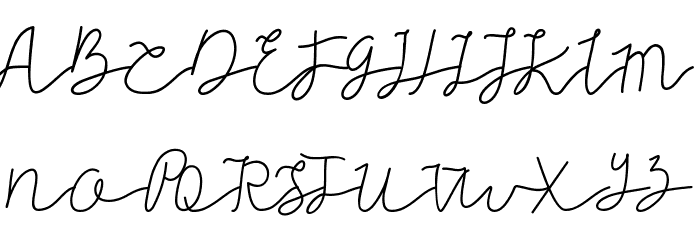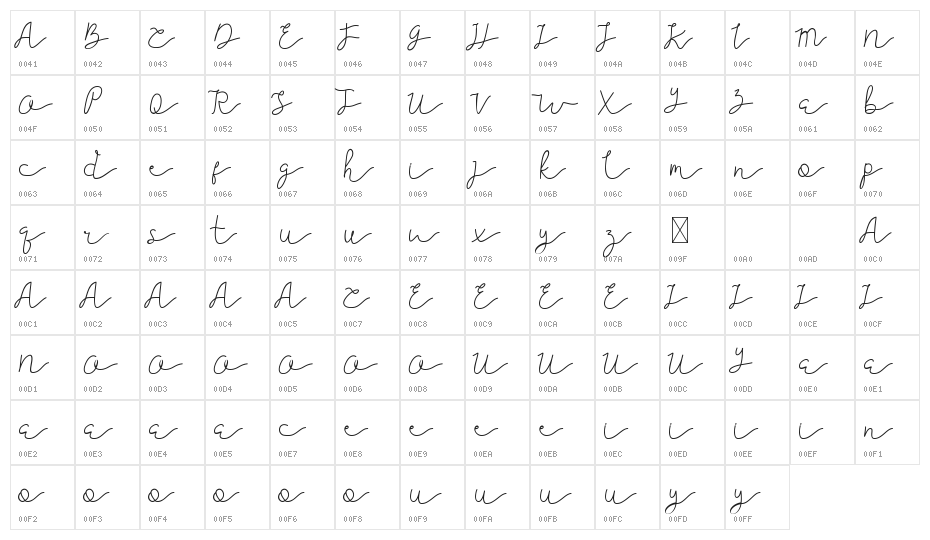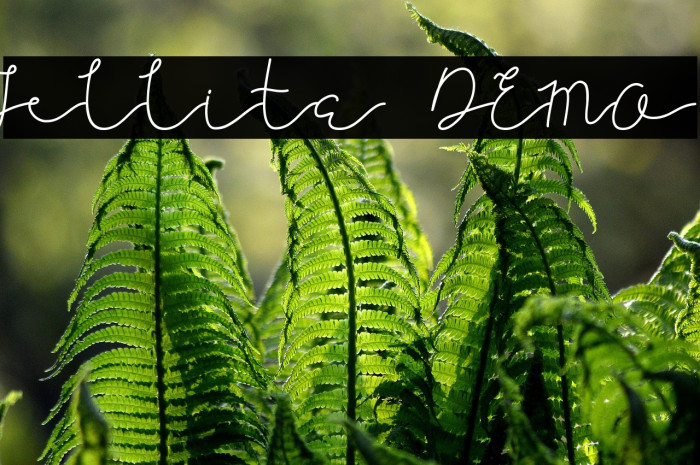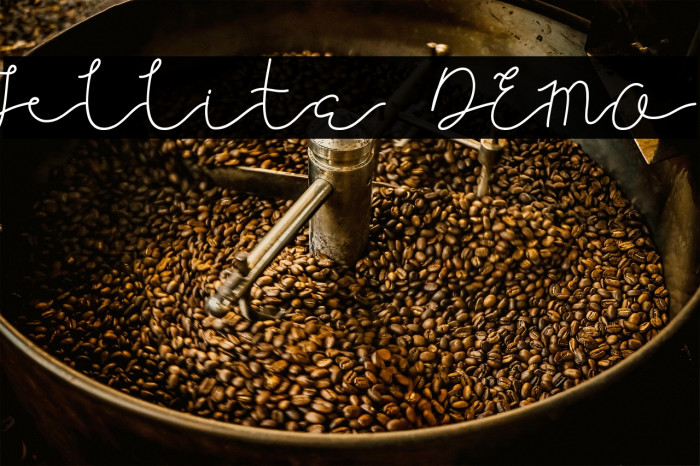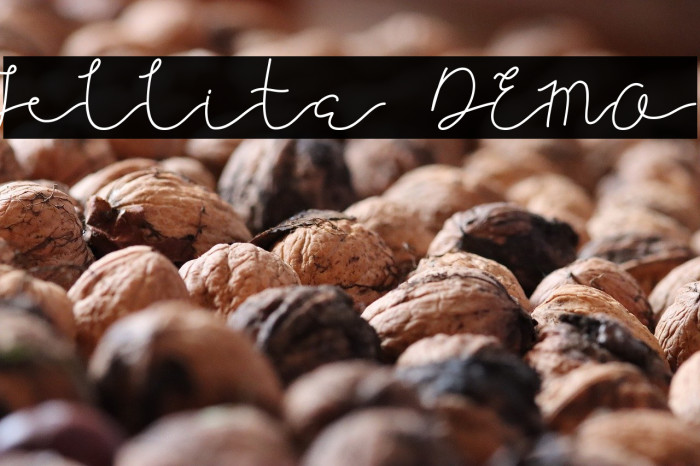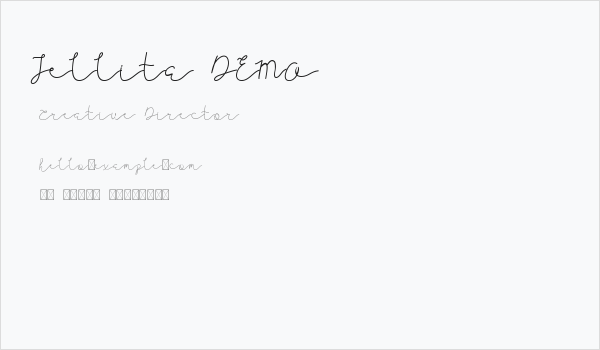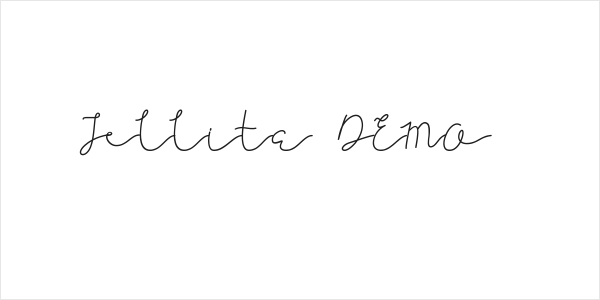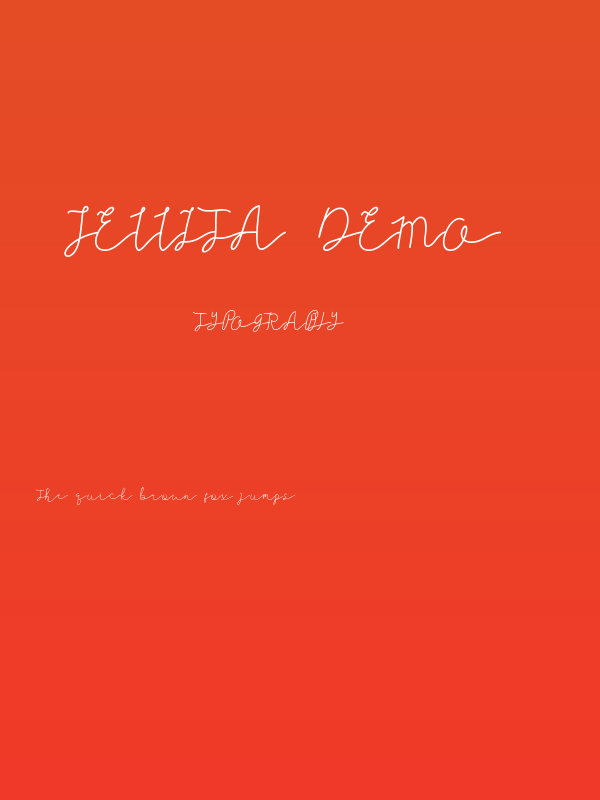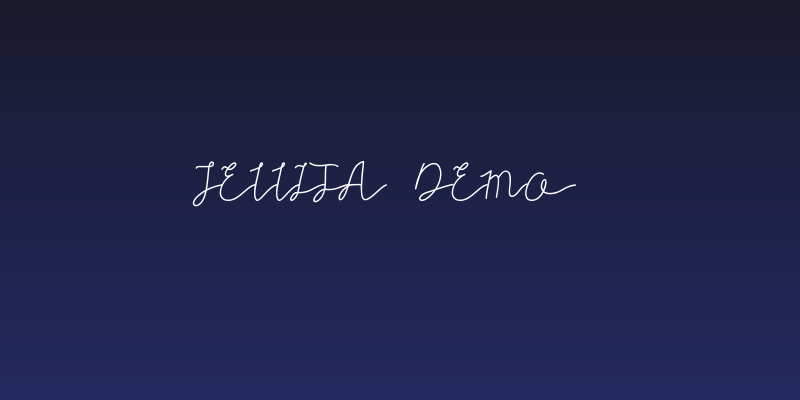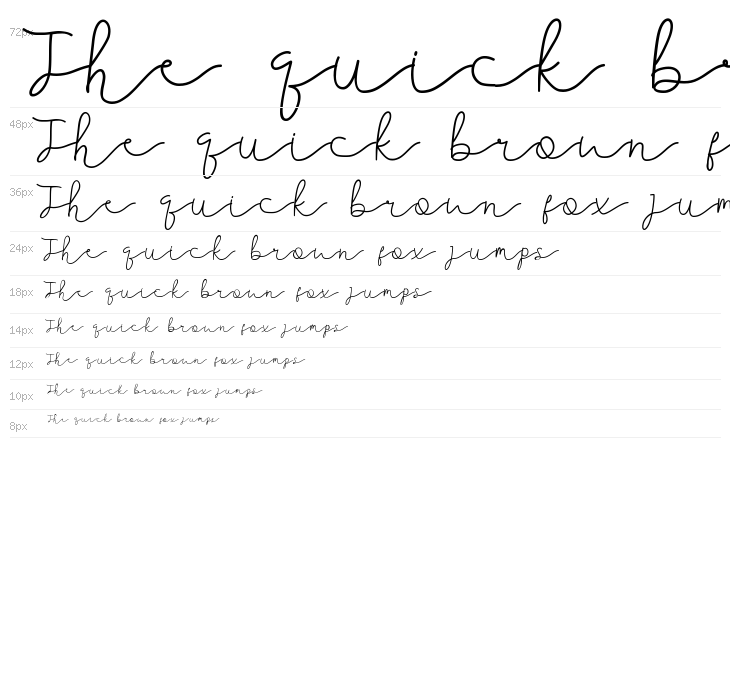
Jellita DEMO Font
Jellita DEMO Description
This font features a delicate and flowing script style, characterized by its elegant and continuous strokes that mimic the fluidity of handwriting. Each letter is gracefully connected, creating a seamless and harmonious appearance. The font exudes a sense of sophistication and charm, making it ideal for projects that require a personal and artistic touch. The characters are well-balanced with a consistent baseline, and the loops and curves add a whimsical flair. Its legibility is maintained despite the intricate design, making it suitable for both decorative and practical applications.
| Overall Style | Elegant and Artistic |
| Proposed Projects | Ideal for wedding invitations, greeting cards, personal branding, and artistic projects. |